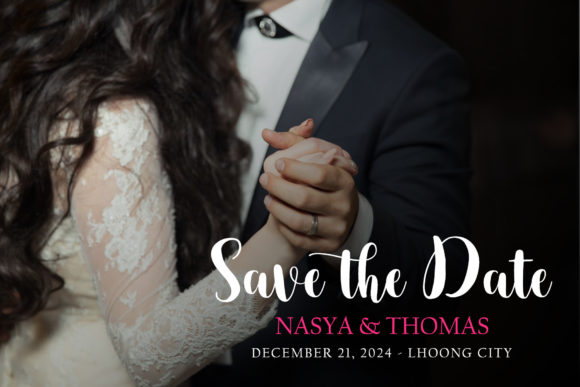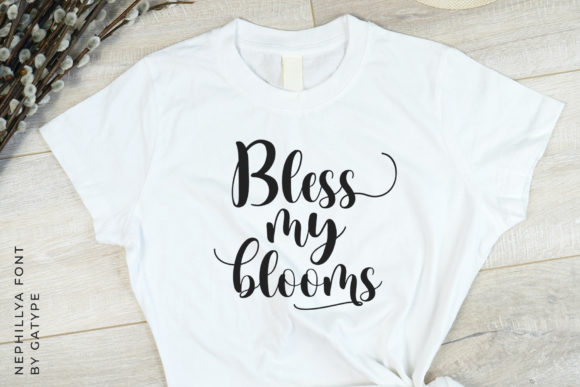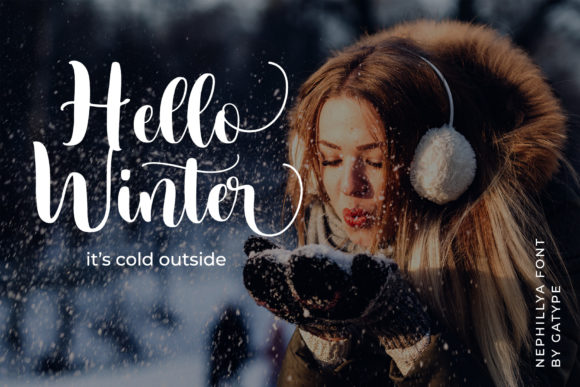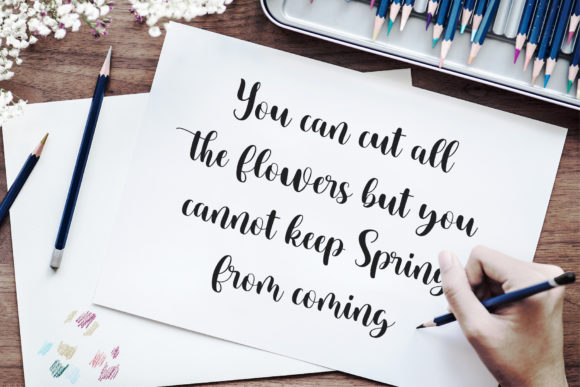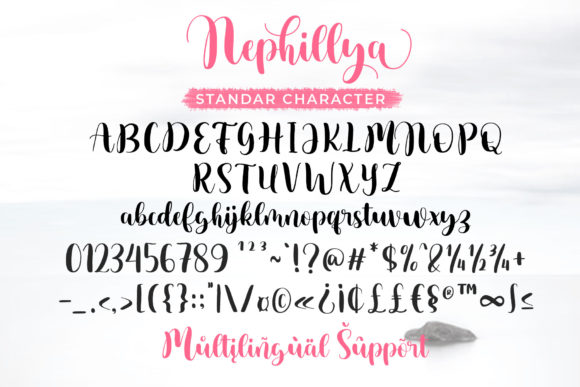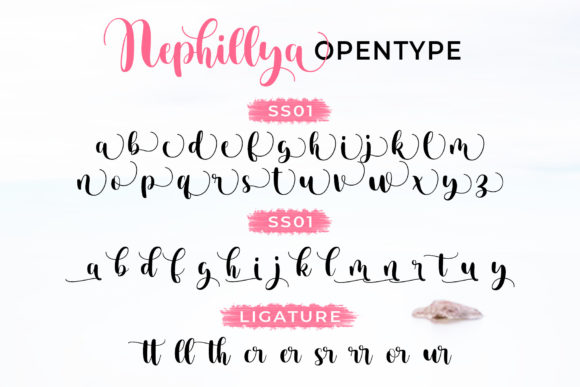
Introduction to Nephillya Font
Have you ever stared at a blank page, waiting for inspiration to strike, only to have it hit you like a wave of creativity? For designers, those moments are the most exciting – the ones where a new idea takes shape and transforms into something truly unique. And for those who love working with handwritten fonts, the Nephillya Font is about to become their new best friend.
This elegant and curvy font is the perfect addition to any design project, from product packaging and branding to magazine covers and social media graphics. Its high-quality design makes it stand out, and with its transparent background, it’s easy to use on any background you choose. Whether you’re working on a creative project or just want to add a personal touch, the Nephillya Font is a valuable resource for any designer.
Key Features of Nephillya Font
- Features a unique, modern design with a transparent background for flexibility
- Includes a range of glyphs and characters for comprehensive use
Honest Review: Nephillya Font
As a designer, I’m always on the lookout for high-quality design resources to enhance my creative projects. Recently, I stumbled upon the Nephillya Font, and I must say, it’s a gem worth exploring.
- Unique and elegant design that adds a touch of sophistication to any project ✨
- Transparent background, making it easy to customize and pair with other fonts
- Only available in a limited number of weights and styles, which may not be suitable for all projects ⚠️
- Not as versatile as some other fonts on the market, which may limit its use in certain creative applications
Overall, I’m impressed with the Nephillya Font, and I think it’s a great addition to any designer’s toolkit. While it may not be perfect, its unique design and transparent background make it a valuable resource for designers looking to add a touch of elegance to their projects.
Tips for Getting the Most Out of Nephillya Font
For the best results, use the Nephillya Font with a transparent background to create a clean and modern design. Experiment with different font sizes and styles to achieve the desired look. You can also combine it with other design elements, such as images and graphics, to create a unique and eye-catching design.
The Nephillya Font is ideal for various creative projects, including logos, social media graphics, posters, presentations, and business documents. It’s also perfect for designers who want to create a unique and stylish aesthetic for their designs.